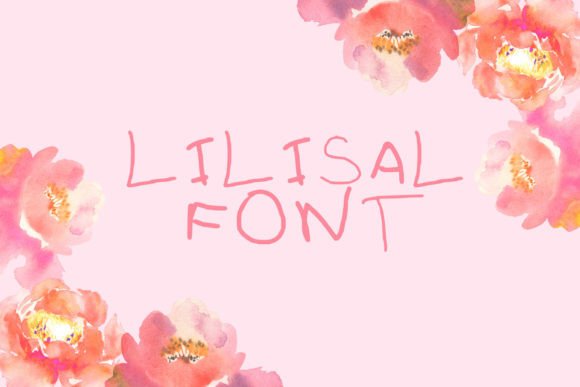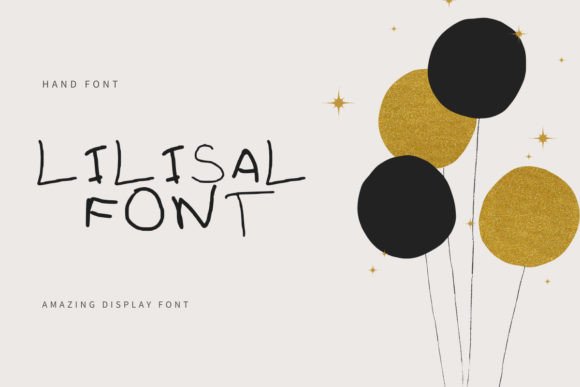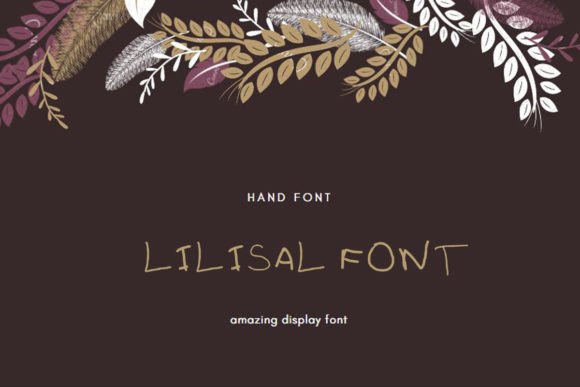
Lilisal Font
Introducing “Lilisal” – Your Modern and Whimsically Incredible Handwritten Font!
“Lilisal” is more than just a font; it’s a creative powerhouse that brings a touch of modernity and whimsical charm to your designs. This incredible handwritten font is the perfect choice to infuse a dose of personality into your projects. Its quirky and playful demeanor is sure to bring a smile to your audience’s face, making your designs stand out in a delightful way.
With “Lilisal,” you can confidently enhance a wide range of creative endeavors, from crafting eye-catching posters and greeting cards to adding a playful twist to your branding and packaging. This font’s unique style is a breath of fresh air in the world of typography, and it’s bound to captivate your audience’s attention.
Imagine using “Lilisal” to create cheerful social media posts, inviting wedding invitations, or even quirky product labels. The possibilities are endless, and this font is here to unleash your creativity without limits.
Don’t let your designs be ordinary when “Lilisal” can make them extraordinary. It’s your go-to font to add that special touch of whimsy and modernity that your projects deserve. Embrace the results and watch your creations come to life in the most incredible way.
So, don’t hesitate any longer – incorporate “Lilisal” into your next project, and get ready to be amazed by the results. This font is here to add a dash of magic to your designs, and you’re going to love every moment of it!